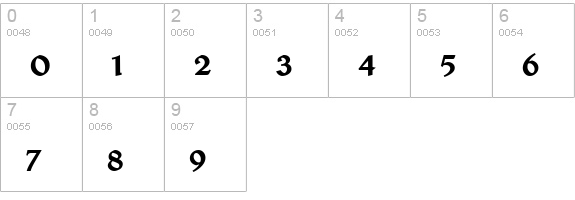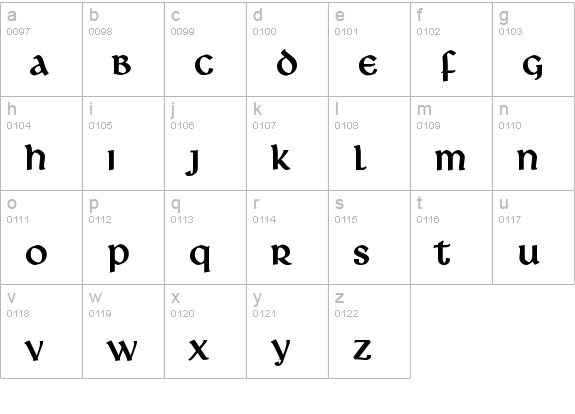
Leo Bold is a strong, high-contrast variant in the Leo typeface family \xE2\x80\x94 well suited to headlines, attention-grabbing titles, and strong calls-to-action.
Leo Bold is a stunning and versatile font that exudes confidence and elegance. With its bold and pronounced letterforms, Leo Bold commands attention and makes a bold statement in any design project. This font is perfect for headlines, logos, posters, and any other creative endeavor that requires a touch of boldness. The sleek and modern design of Leo Bold adds a contemporary flair to any typographic composition. Its strong and well-defined lines create a sense of stability and strength, while its slightly rounded edges add a touch of softness and approachability. What makes Leo Bold even more appealing is that it is freely available to download at FontsMarket.com. This means that you can easily access and utilize this remarkable font in your projects without any cost or hassle. Whether you are a professional designer or a creative enthusiast, Leo Bold is a valuable addition to your font library. With Leo Bold, you have the freedom to unleash your creativity and bring your designs to life. Whether you are designing a captivating poster or crafting a striking logo, Leo Bold provides the perfect balance between boldness and sophistication. Its versatility allows it to work beautifully in both digital and print mediums, ensuring that your message is conveyed with clarity and impact. Take your designs to the next level with Leo Bold. Download this exceptional font for free at FontsMarket.com and experience the power of boldness in your creative endeavors.